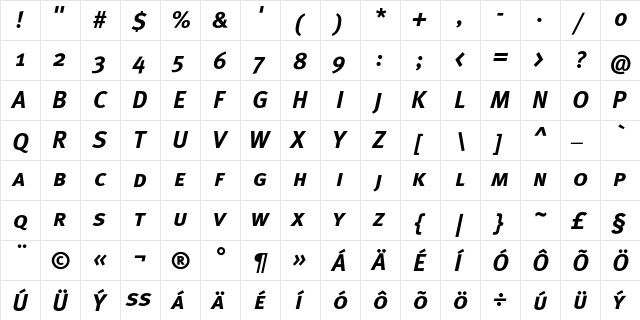
MetaBoldCE ItalicCaps Font Preview
Design Context for MetaBoldCE Typeface
MetaBoldCE offers clean, dependable letterforms without strong stylistic allegiance, making it a practical choice for designers who need flexibility. The dynamic lean of this cut emphasises speed and emphasis in any layout. The heavy weight commands attention and anchors typographic hierarchies.